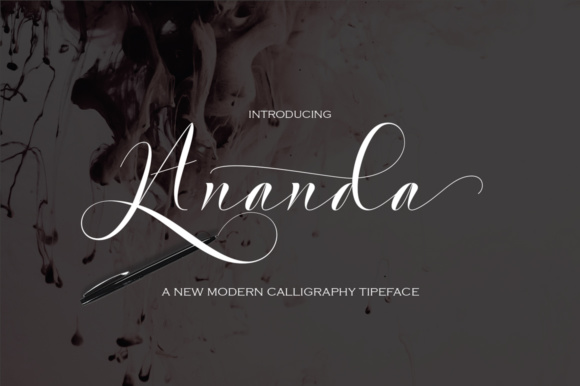
The Elegance of Ananda Script: A Comprehensive Guide
I’ll never forget the time I was working on a wedding invitation project, and my client asked for a font that exuded elegance and sophistication. I scoured the internet, trying out various fonts, but none seemed to fit the bill. That was until I stumbled upon Ananda Script, a stylish calligraphy font that instantly caught my eye. With its smooth baseline and classic look, I knew I had found the perfect fit. In this article, I’ll share my experience with Ananda Script, its features, and how to make the most of this beautiful font.
A Personal Review of Ananda Script
As a designer, I’m always on the lookout for fonts that can elevate my projects. Here’s what I love about Ananda Script:
- ✨ Elegant and sophisticated look, perfect for formal events and projects
- ✅ Smooth baseline that flows effortlessly, making it a joy to read
- 💫 Highly versatile, suitable for headings, signatures, logos, wedding invitations, and more
- 🎨 Beautiful calligraphy style that adds a touch of luxury to any design
While Ananda Script is an excellent font, it’s not without its quirks:
- ⚠️ Some users may find the font a bit too ornate for certain projects, such as body text or casual designs
- 🤔 Limited availability of certain OpenType features, which may limit its use in specific design applications
The Story Behind Ananda Script
Ananda Script was designed by a team of typographers who aimed to create a font that exudes elegance and sophistication. Inspired by traditional calligraphy, Ananda Script features a smooth baseline and beautiful letterforms that flow effortlessly. The font’s creator wanted to design a font that would be perfect for formal events, luxury branding, and creative projects.
| What is Ananda Script? | Ananda Script is a stylish calligraphy font with a smooth baseline and a classic, elegant look. |
| What can I use Ananda Script for? | Ananda Script can be used for various purposes such as headings, signatures, logos, wedding invitations, and more. |
| Is Ananda Script suitable for body text? | While Ananda Script is a beautiful font, it may not be the best choice for body text due to its ornate style. It’s better suited for headings and titles. |